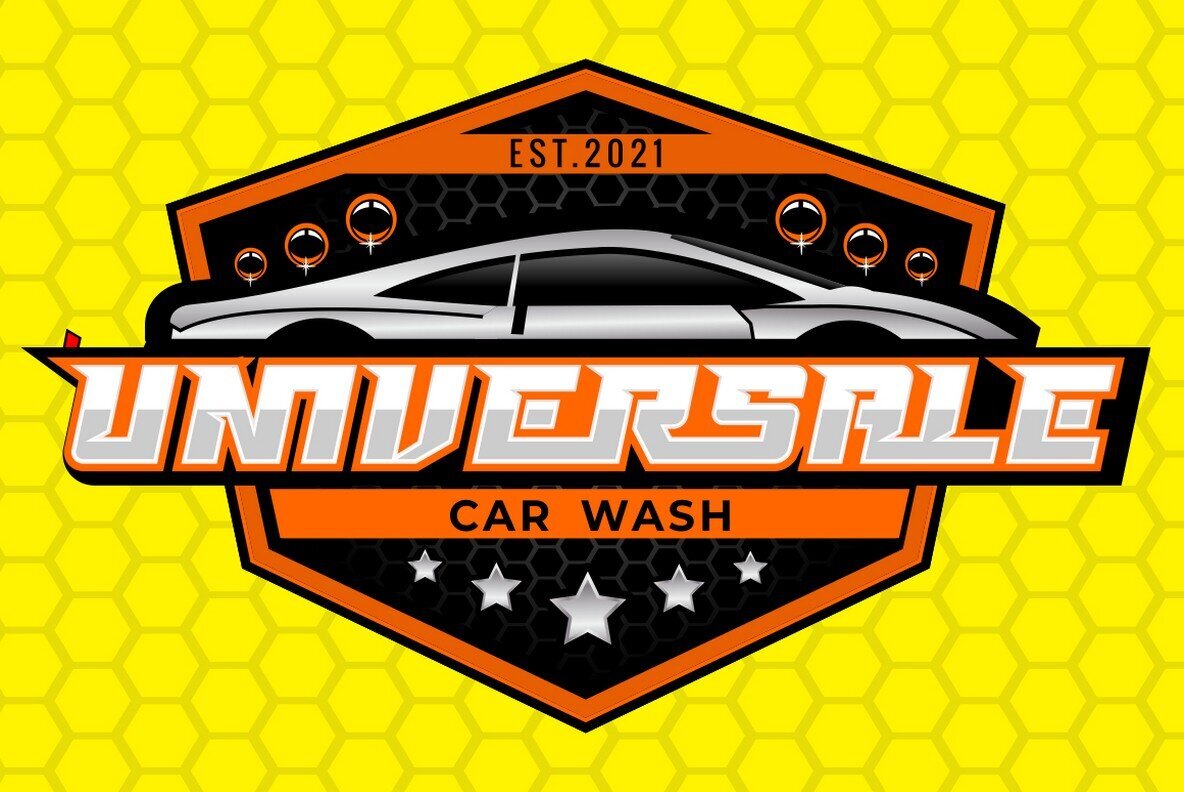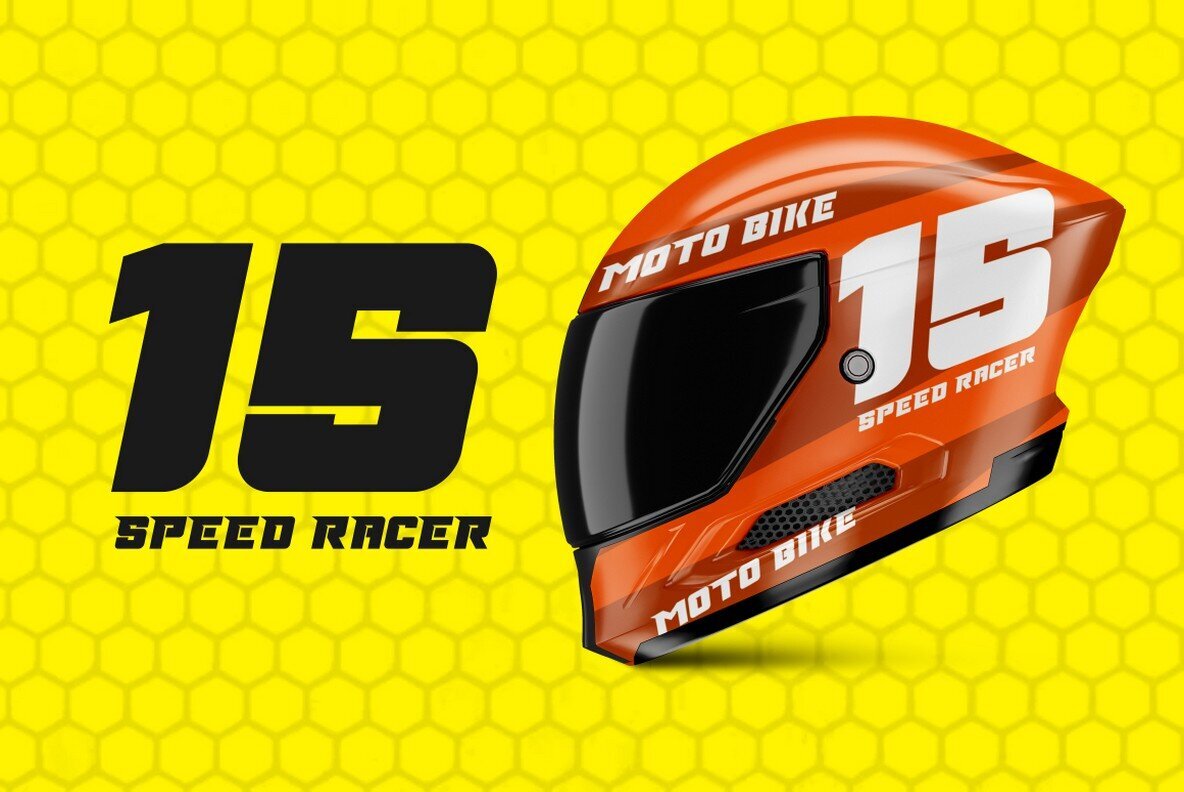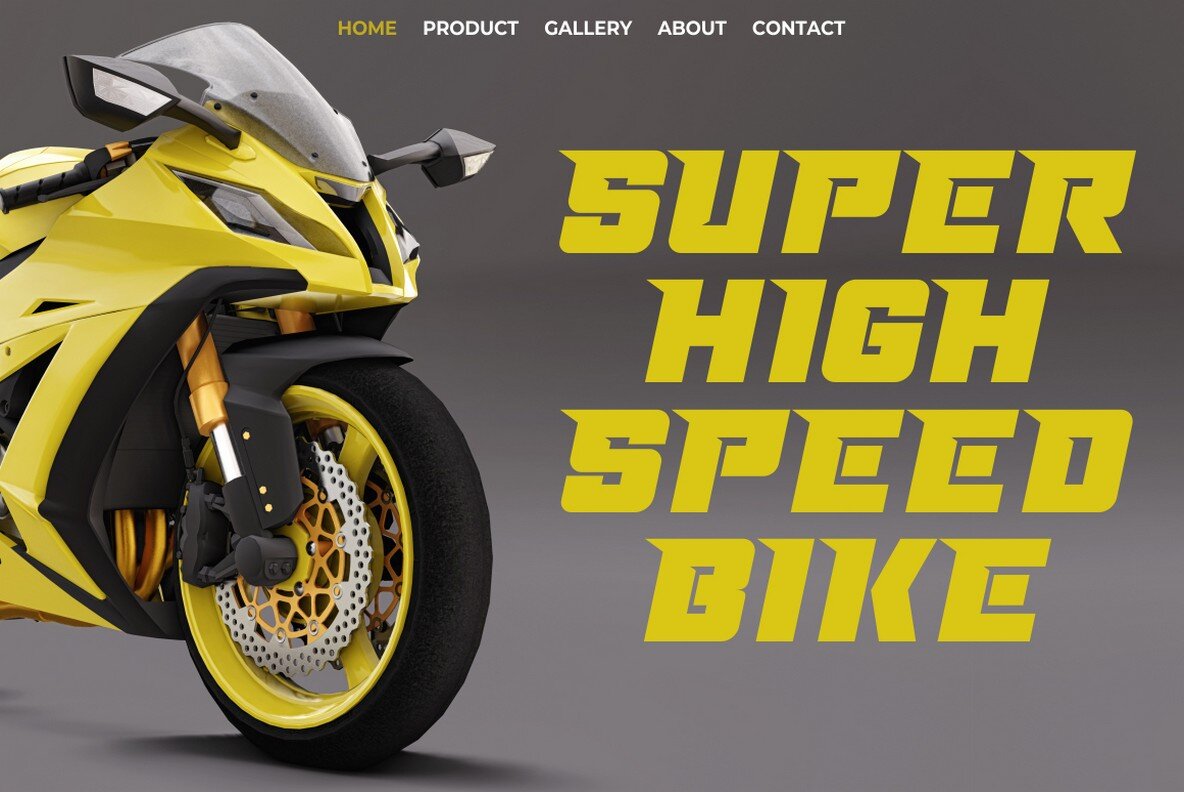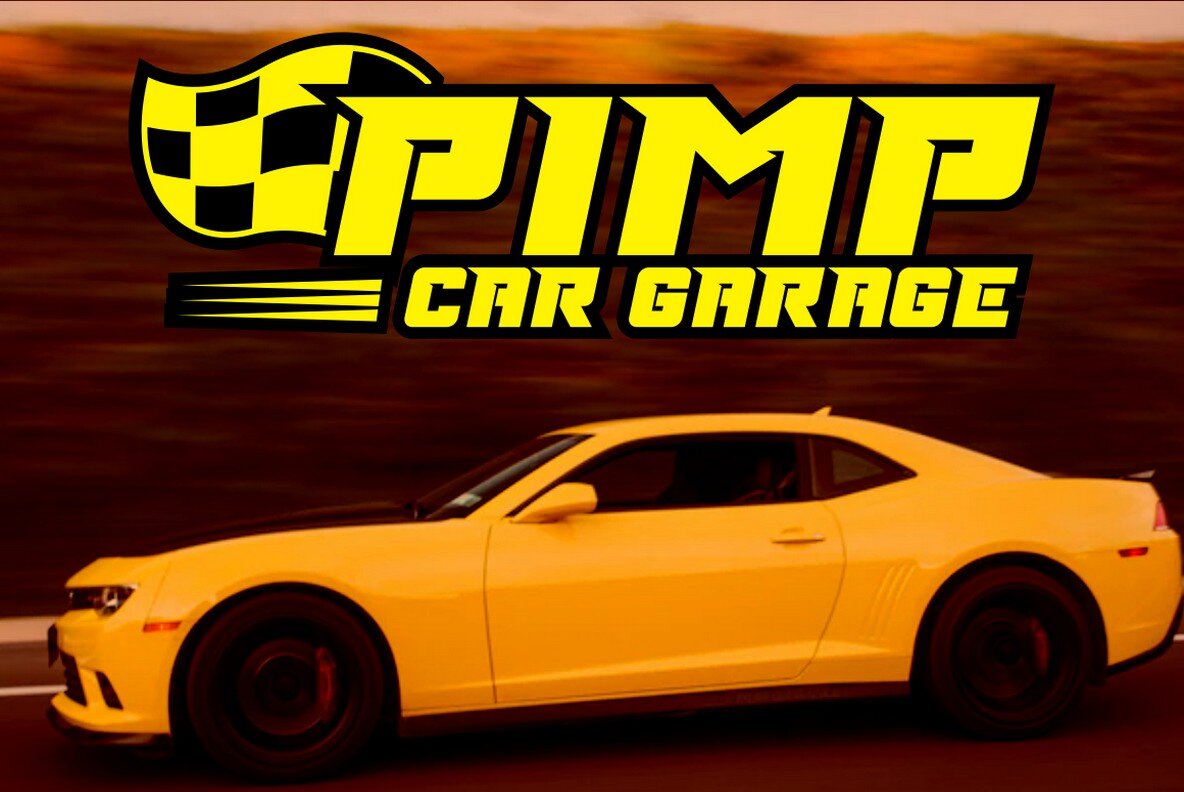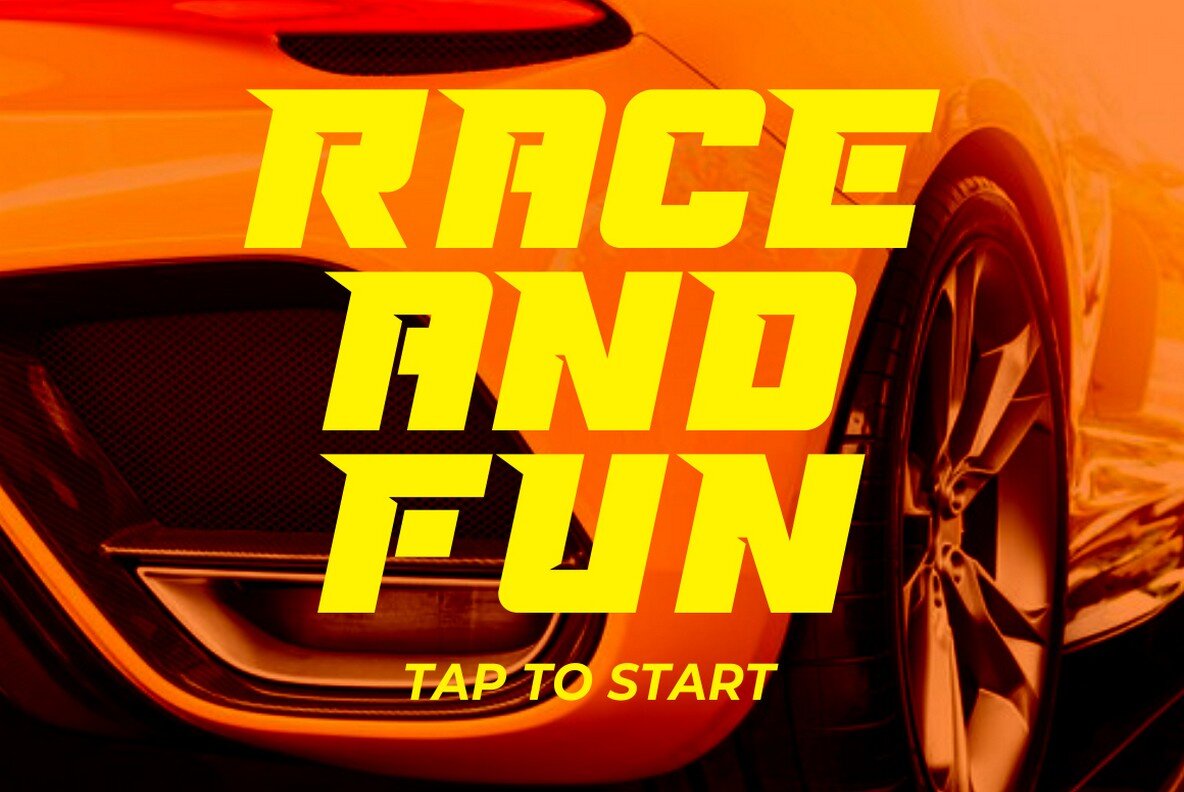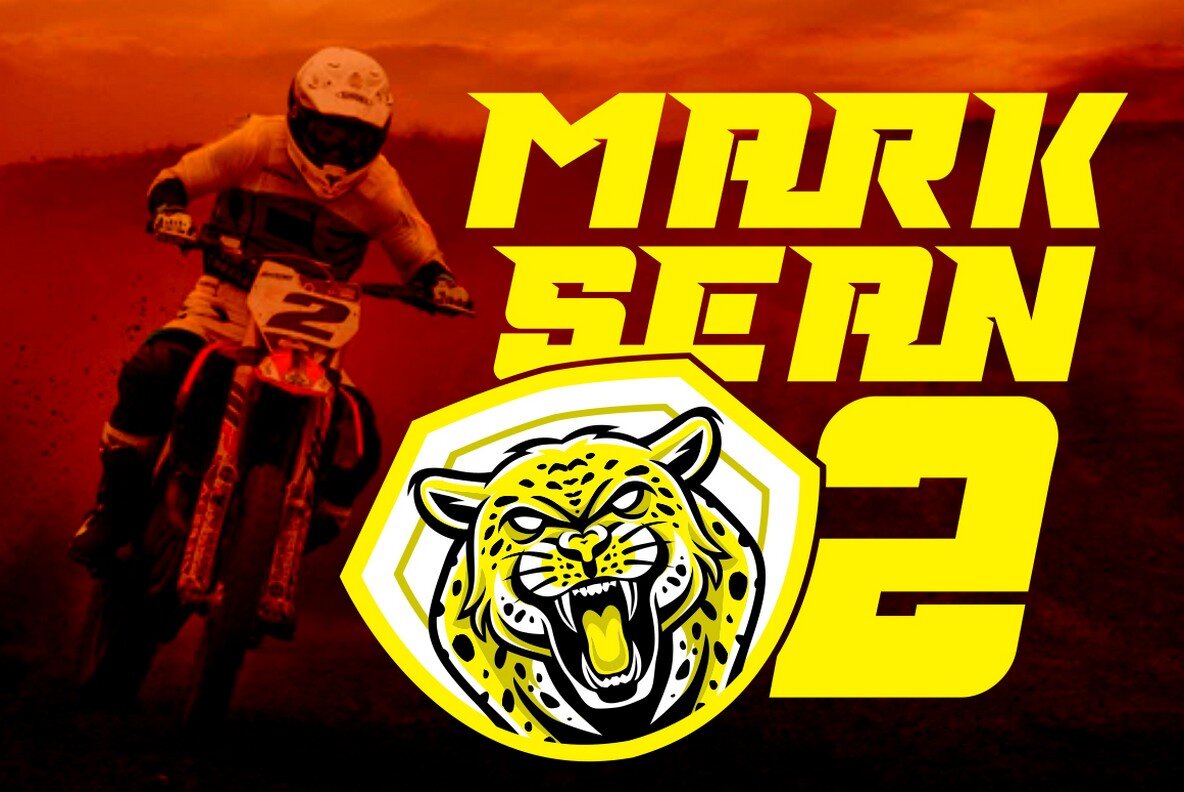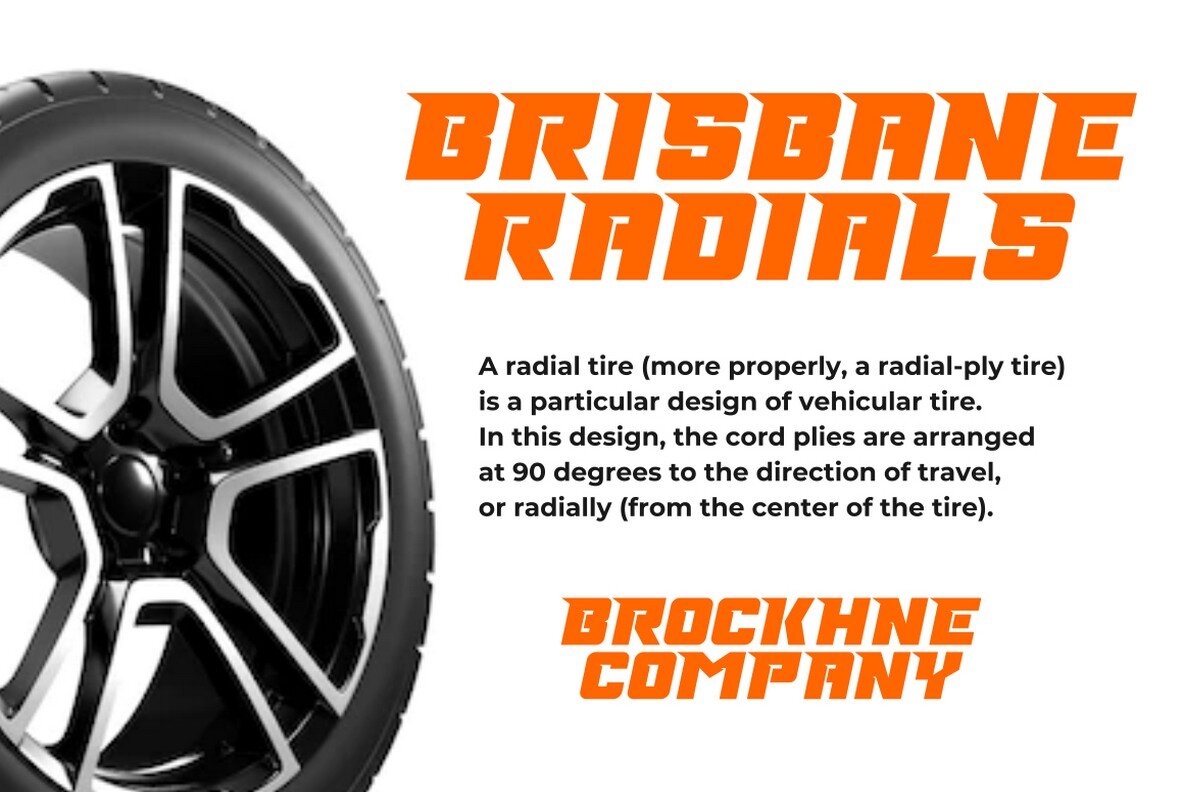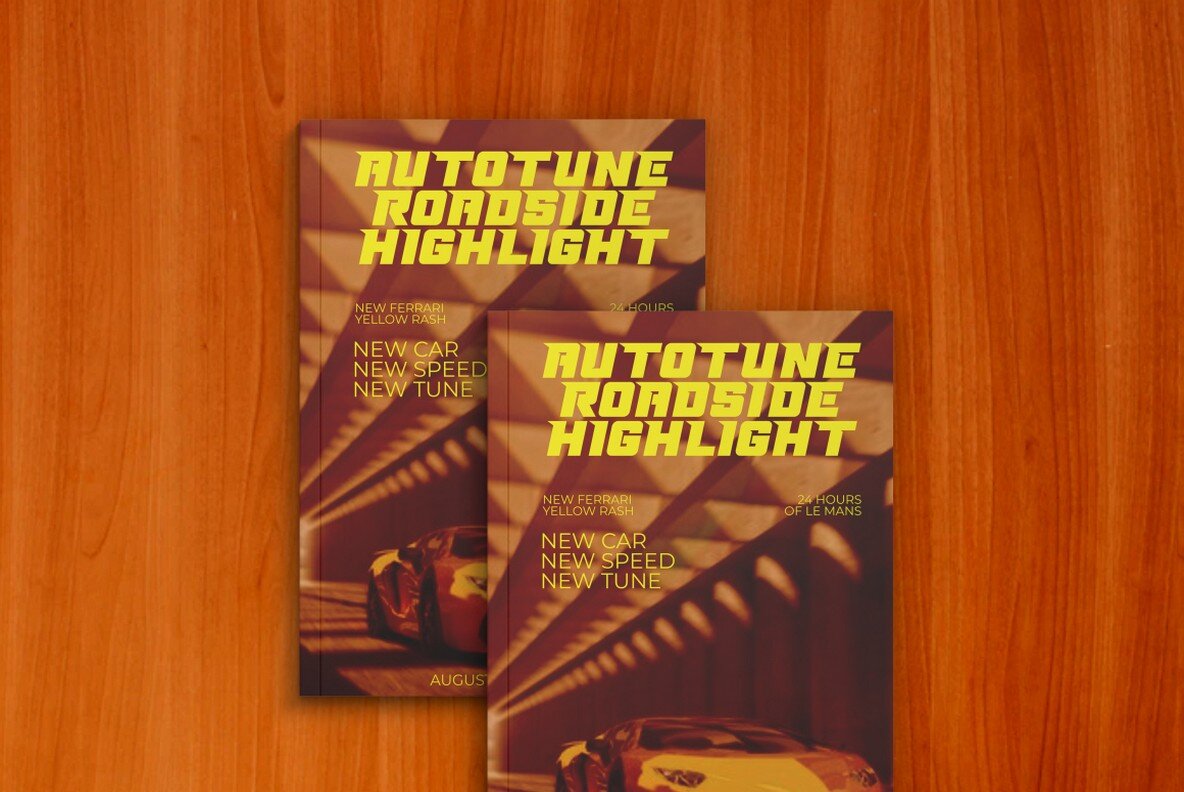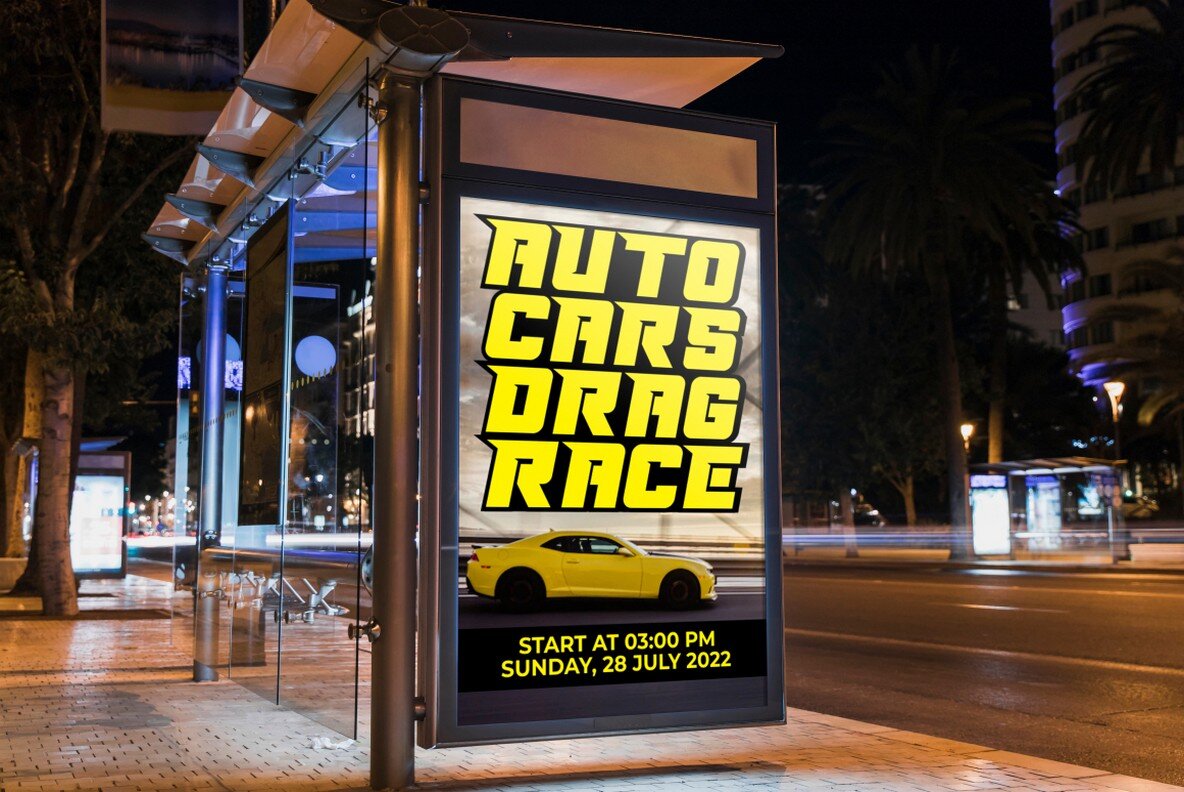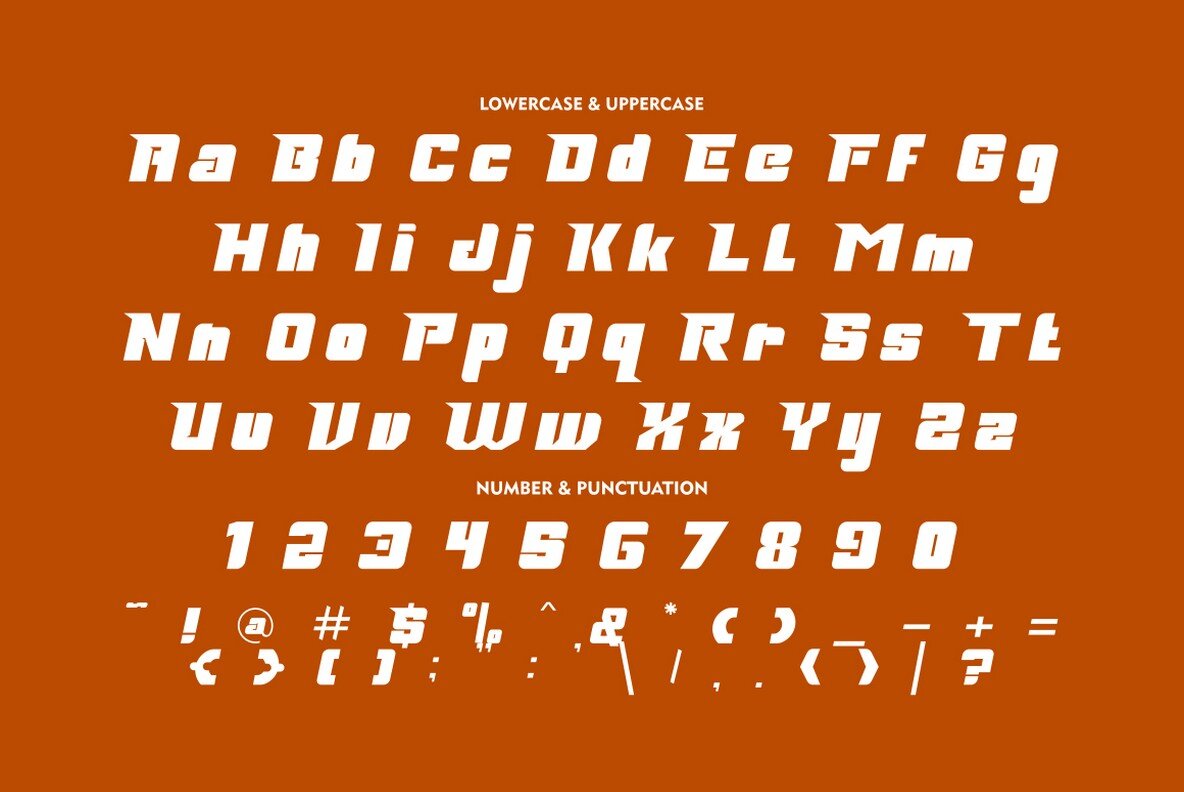
Rock Road Font
Rock Road
Crafted with precision and intensity, Rock Road exudes speed and strength—attributes that make it an ideal display font for dynamic design projects. This sharp, angular typeface captures the essence of motion, providing an impactful statement in any context. Its versatility extends to both uppercase and lowercase forms, enabling designers to explore creative avenues beyond its original racing aesthetic. Rock Road is perfectly suited for a wide array of creative endeavors, including but not limited to:Rock Road: A Bold Typeface with Racing Flair